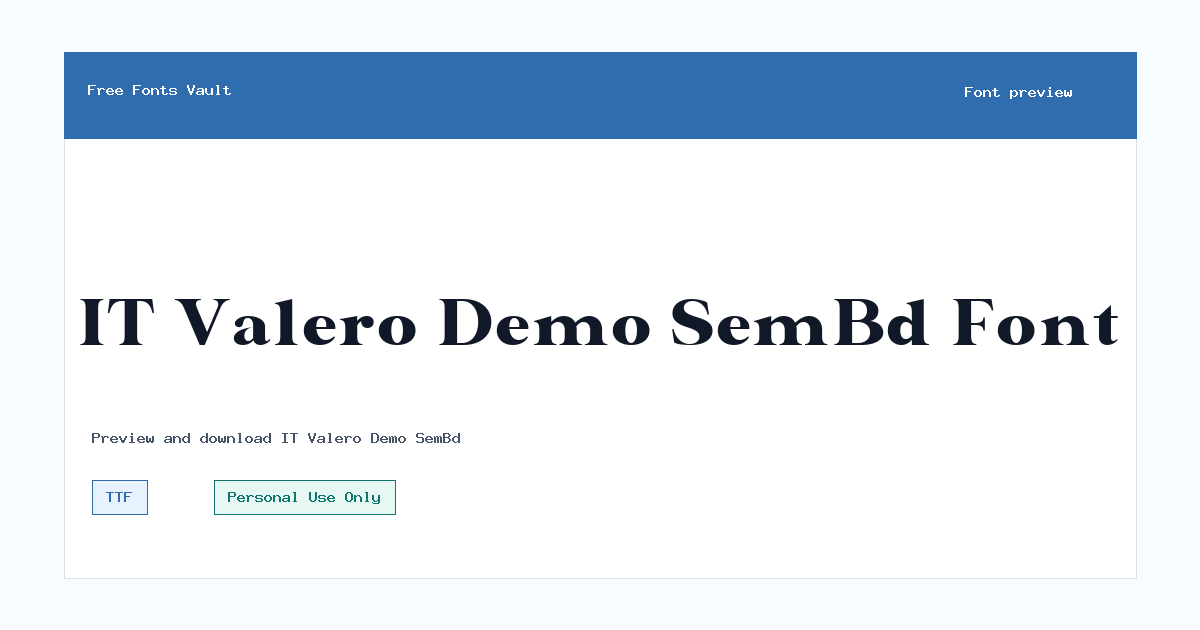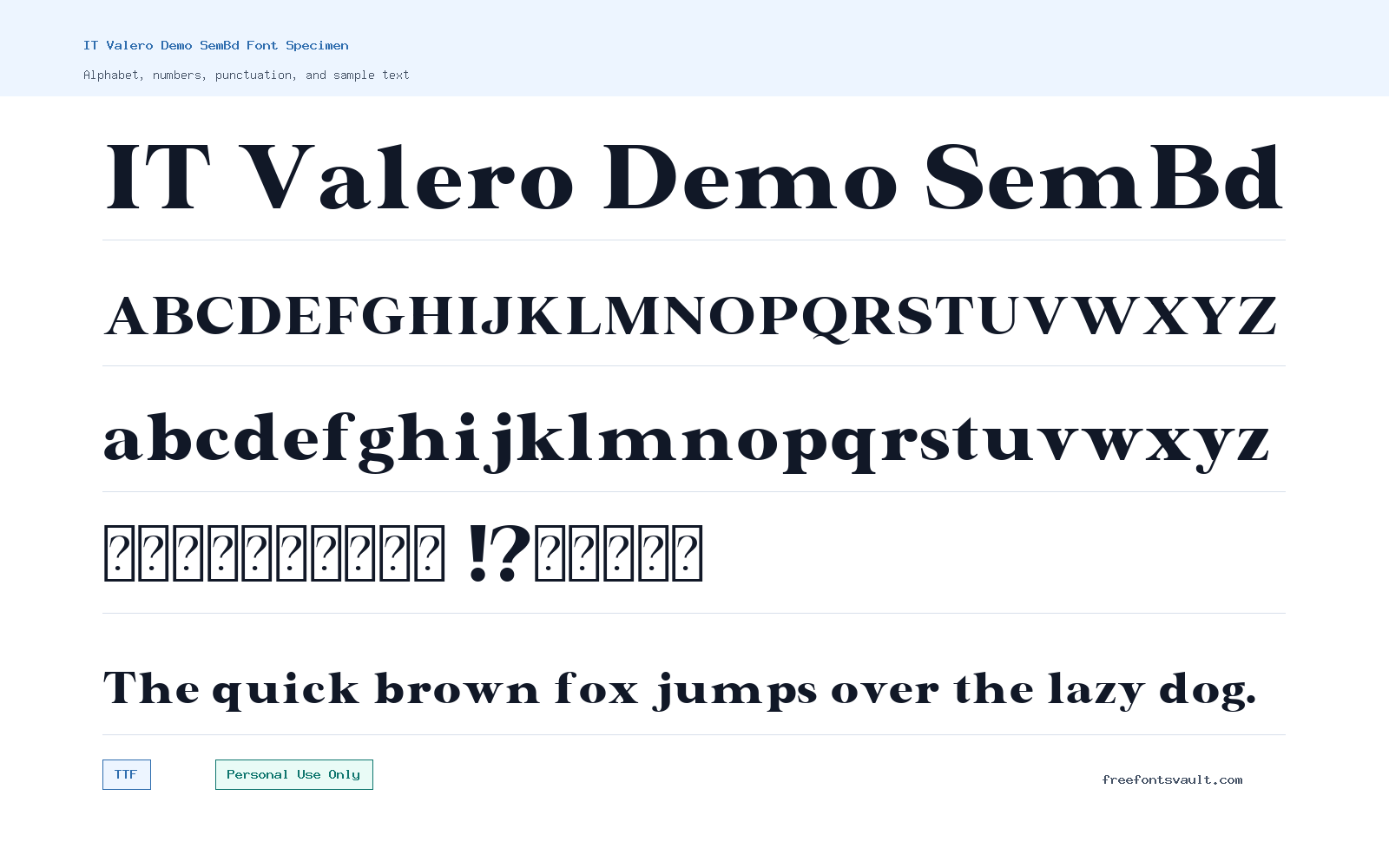
IT Valero Demo SemBd
- Designer Indotype
- Foundry Indotype Foundry
IT Valero Demo SemBd font.
IT Valero Demo SemBd is a serif demo font for visitors who want a heavier, more confident text style for short display settings. It is best treated as a personal-use font unless you have a separate commercial license from the rights holder.
About IT Valero Demo SemBd
IT Valero Demo SemBd appears to be the SemiBold demo cut from the IT Valero serif family by Indotype Foundry. The available font file is a TTF with a normal style and a 700 weight, so it should feel noticeably stronger than regular text without moving into an extra-heavy look. Because the name marks it as a demo version, it is wise to test it carefully in the preview box before using it in finished artwork. Try a few headline lengths, mixed-case words, all-caps labels, and numbers to see how the spacing behaves in the sizes you need.
For design work, this font makes the most sense in short, controlled settings: logo drafts, poster headlines, social graphics, editorial mockups, packaging concepts, invitations, and web layout comps. A SemiBold serif can bring structure to a title without relying on extreme weight, but it still needs room to breathe. Use larger sizes, avoid packing too many words into one line, and check whether thin details hold up when exported to images. If you are making a logo, test the exact brand name rather than judging the font from sample text. Letter combinations can change the feel of a mark quickly, especially in serif typefaces.
- Serif demo font family member with a SemiBold-style weight
- Suited to short display text, title treatments, and design mockups
- Logo concepts and brand direction tests
- Poster headlines and event graphics
- Editorial title mockups and magazine-style layouts
- Website hero text previews and landing page comps
- Personal projects, school work, and non-commercial design experiments
Use the preview tool with the exact words you plan to design. For logo work, test uppercase, lowercase, and tight spacing. For posters and social graphics, compare the font at large sizes and at thumbnail size, since serif details can change how readable a title feels. Pair it with a plain sans serif for body copy if the layout needs contrast and easy reading. Keep the serif for headings, names, pull quotes, or short labels rather than long paragraphs unless your own testing shows the text stays comfortable.
What kind of font is IT Valero Demo SemBd?
It is listed as part of the IT Valero Serif Font Family and the available style is a SemiBold demo cut. The font file is a TTF with normal style and 700 weight.
What should I pair with this font?
Start with a simple sans serif for supporting text. A neutral sans keeps the layout readable and lets the serif headline carry the visual personality. Avoid pairing it with another decorative serif unless the design has a clear hierarchy.
Will this font work for body text?
It may work for short blurbs at the right size, but the SemiBold weight is usually better for headings and emphasis. For long reading, test line spacing, paragraph length, and screen rendering before committing.